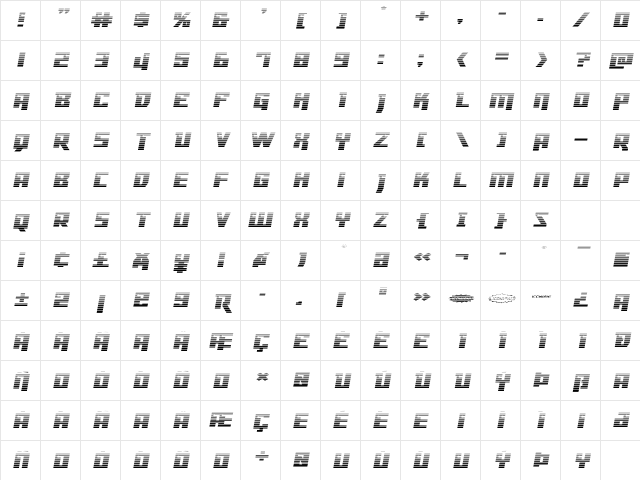
Complete Dangerbot Gradient Expanded glyph index. Displaying only characters natively supported by Dangerbot Gradient Expanded font.
Dangerbot Gradient is a composed and adaptable typeface that performs quietly and consistently across a wide range of design contexts.